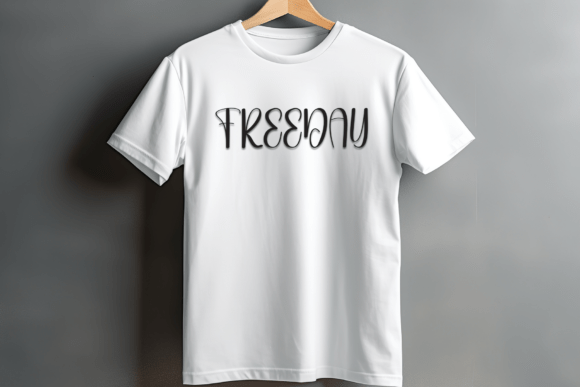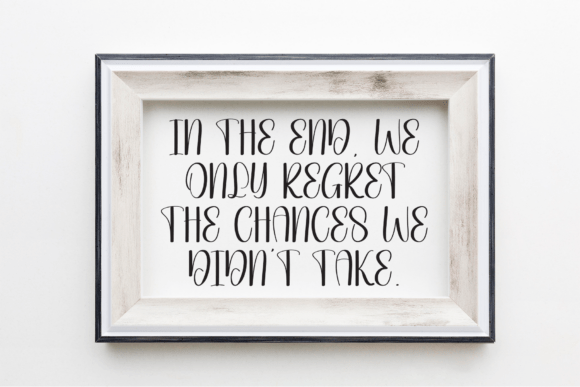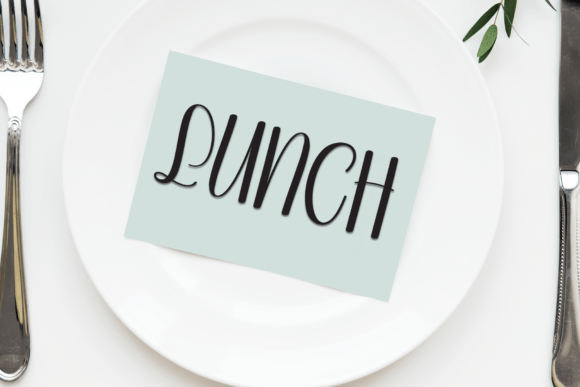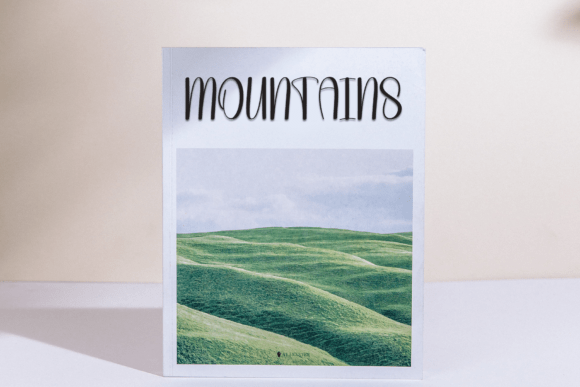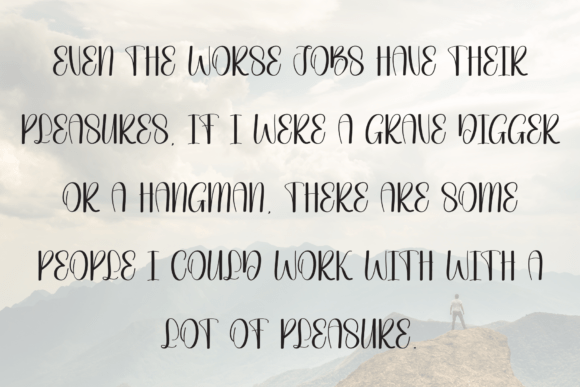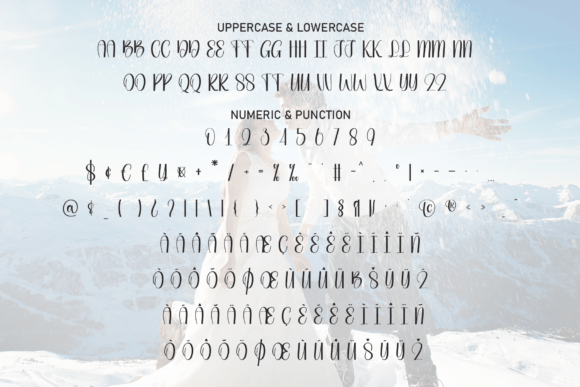
Bride Snowing Font: Elevate Your Designs with a Touch of Modern Elegance
In the world of typography, the right font can make all the difference in transforming a design from ordinary to extraordinary. For designers and crafters seeking a font that embodies both simplicity and a friendly, approachable vibe, Bride Snowing Font is an exceptional choice. This casual and neat display font is meticulously crafted to bring a modern, polished finish to a wide array of design projects, from branding and headlines to packaging and digital content.
The Essence of Bride Snowing Font
Bride Snowing Font stands out with its clean lines, balanced letterforms, and subtle rounded edges. This combination of features captures the essence of modern handwritten typography, offering a fresh and contemporary look that is both visually appealing and highly legible. The font’s design ensures that it can be used across various platforms and applications, providing a consistent and professional appearance.
Key Features of Bride Snowing Font
- Clean Lines and Balanced Letterforms: The font’s structure is characterized by clean lines and well-balanced letterforms, which contribute to its readability and aesthetic appeal.
- Subtle Rounded Edges: The subtle rounding of the edges gives the font a soft, approachable feel, making it perfect for designs that require a friendly and inviting tone.
- Modern Handwritten Typography: Bride Snowing Font brings a touch of modernity to handwritten typography, offering a polished finish that elevates any design.
- Versatility: Its versatile style makes it suitable for a wide range of applications, including branding, headlines, packaging, and digital content.
Applications of Bride Snowing Font
The versatility of Bride Snowing Font makes it an invaluable asset for designers and crafters. Here are some of the key areas where this font can make a significant impact:
- Branding: Use Bride Snowing Font to create a memorable and distinctive brand identity that communicates warmth and approachability.
- Headlines: Its clean and modern look makes it perfect for headlines, adding a touch of elegance and sophistication to any publication or digital content.
- Packaging: The font’s friendly vibe and polished finish are ideal for product packaging, helping to create a positive first impression.
- Digital Content: For websites, social media posts, and digital marketing materials, Bride Snowing Font offers a professional yet approachable look that engages audiences.
Why Choose Bride Snowing Font?
Choosing Bride Snowing Font for your design projects offers several advantages:
- Unique Blend of Simplicity and Friendliness: The font strikes a perfect balance between simplicity and a friendly vibe, making it versatile and highly usable.
- High Legibility: Its clean structure and balanced letterforms ensure high legibility across different sizes and applications.
- Modern Appeal: The font’s modern look and polished finish make it an excellent choice for designers looking to add a contemporary touch to their work.
- Wide Range of Applications: From print to digital, Bride Snowing Font’s versatility means it can be used in a multitude of design projects.
Bride Snowing Font is a remarkable addition to any designer’s toolkit, offering a unique blend of simplicity, friendliness, and modern elegance. Its clean lines, balanced letterforms, and subtle rounded edges make it an excellent choice for a wide range of applications, from branding and headlines to packaging and digital content. By incorporating Bride Snowing Font into your projects, you can add a warm, inviting touch that engages audiences and elevates your designs to new heights. Whether you’re a professional designer or a crafter, this font is sure to become a favorite in your creative endeavors.
Discover the potential of Bride Snowing Font today and transform your designs with its crisp structure, versatile style, and undeniable charm.